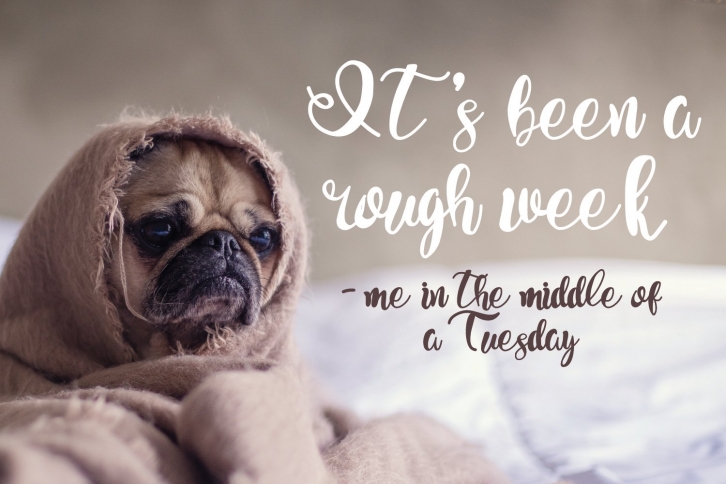
Day Drinking is a trendy and unique font with an authentic style. It was designed by Nichole Andrew and it's a great choice for creative people who need such a font. It was released on March 25, 2020 and the file size is 3.52 MB. Day Drinking will add an organic vibe to any design idea!